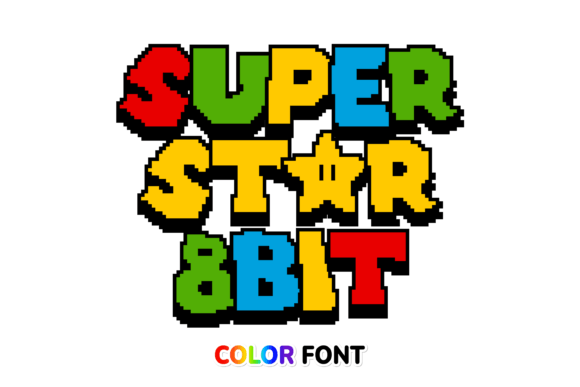
Superstar 8bit: A Pixel Game Font for Modern Creatives
There’s a certain energy that comes with the pixelated aesthetic of classic arcade games. It’s a style that feels both nostalgic and surprisingly contemporary, a visual language that communicates fun, directness, and a touch of retro cool. This is the world that Superstar 8bit inhabits. It’s not just a collection of blocky letters; it’s a carefully crafted color font designed in the authentic style of a Pixel Game. Each character is built with that characteristic grid-based precision, but what sets it apart is its vibrant, pre-colored design. It arrives ready to use, injecting immediate personality into any project.
As a premium font, Superstar 8bit is a specialized display font. Its strength lies in headlines, logos, and short, impactful text where its unique character can truly shine. Think of it as a visual shorthand for creativity and playfulness. For a brand identity that wants to convey approachability and fun—like a indie game studio, a retro-themed cafe, or a children’s educational app—this typeface can become a cornerstone of its visual system. It immediately sets a tone that a standard sans serif font or serif font simply cannot achieve. The personality is baked right in.
Practical Applications: Where This Creative Font Excels
The true value of a creative font like Superstar 8bit is measured in its real-world use. Its PUA encoding is a practical feature, meaning every glyph and ligature is easily accessible without special software knowledge. This makes it a reliable tool in your design assets kit. Let’s look at where it fits best.
In logo design and branding, it’s perfect for a business that wants to stand out. Imagine a logo for a mobile gaming newsletter or a custom sticker shop. The font does the heavy lifting of establishing a memorable visual identity. For packaging design, especially for products like candy, snacks, or tech accessories, it can make a product pop on a crowded shelf. It’s a conversation starter.
For digital creators and marketers, Superstar 8bit is a powerhouse for social media graphics. A bold, pixelated headline in an Instagram story or a YouTube thumbnail is incredibly effective at grabbing attention in a fast-scrolling feed. It translates well to web design for hero sections, call-to-action buttons, or promotional banners where you need an element of visual surprise. Bloggers and publishers can use it for chapter titles or pull quotes in editorial design to break up long-form text and add visual interest.
Design Considerations: Pairing, Readability, and Professional Use
Using a distinctive font effectively requires some thoughtful pairing. Because Superstar 8bit is so expressive, it works best when balanced with a cleaner, more neutral companion. A classic font pairing strategy is to use it for your main headline and pair it with a highly legible sans serif font for body text. A font like Roboto, Open Sans, or Lato provides a calm, readable foundation that lets the pixel font’s personality stand out without overwhelming the viewer. Avoid pairing it with another busy script font or handwritten font, as this can create visual chaos.
Readability is key. Superstar 8bit is designed for impact, not for paragraphs. Use it for short bursts of text: titles, headers, logos, and buttons. At very small sizes, the pixel details may become muddy, so it’s wise to test it at the size you intend to use. The included color version is fantastic for digital and print, but remember that the standard OTF/TTF files are not compatible with Cricut machines—a crucial check for crafters.
From a professional standpoint, this is a commercial font that offers significant versatility. It can help a brand achieve consistency across multiple platforms—from a website header to social media ads to printed flyers—reinforcing recognition and a cohesive modern typography style. It signals that a brand pays attention to detail and isn’t afraid to have a distinct point of view. When evaluating if it’s the right fit, consider your audience. It resonates strongly with adults in the 20-50 range who appreciate gaming culture, retro design, and creative, non-corporate aesthetics.
Ultimately, Superstar 8bit is more than just a novelty. It’s a strategic design asset. When used with intention, it can elevate a project from ordinary to memorable, inject a dose of fun into a brand, and connect with an audience on a visual and emotional level. It’s a tool for telling a story—one pixel at a time.